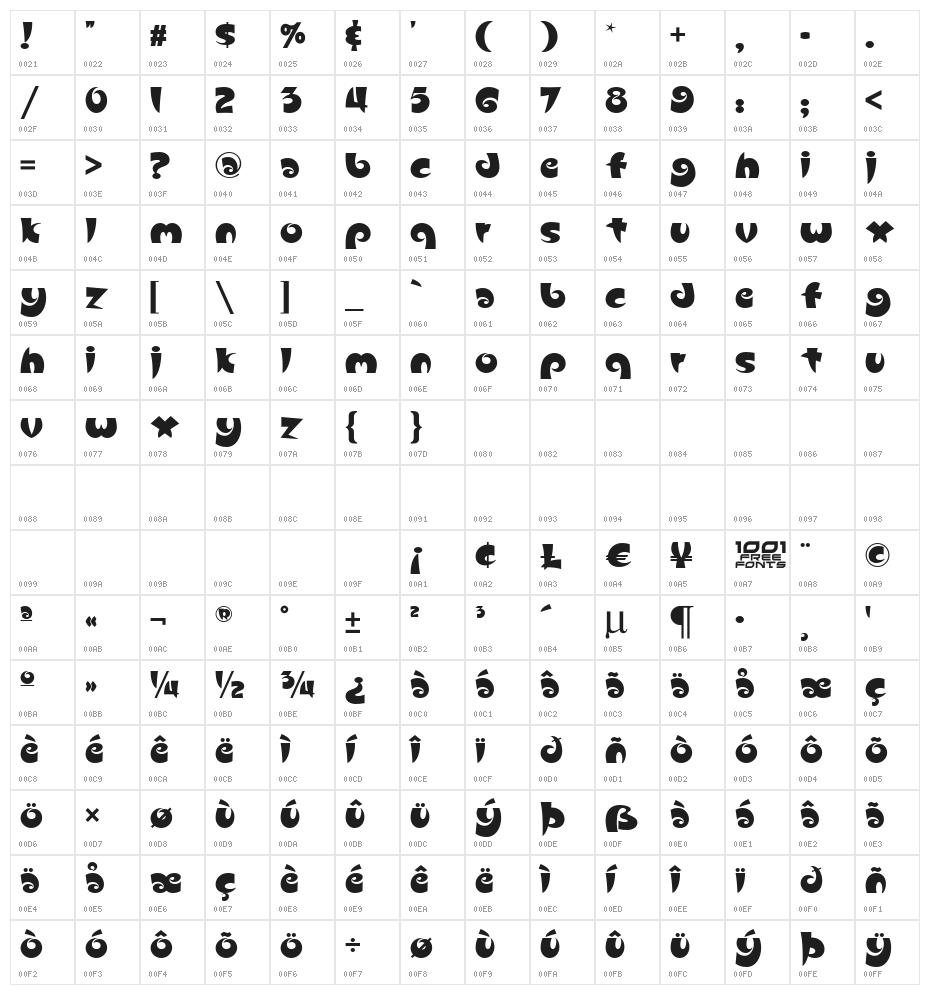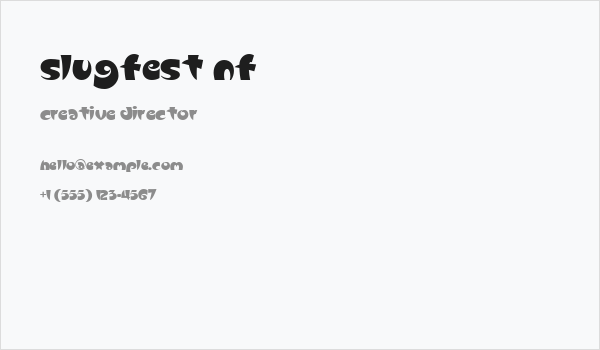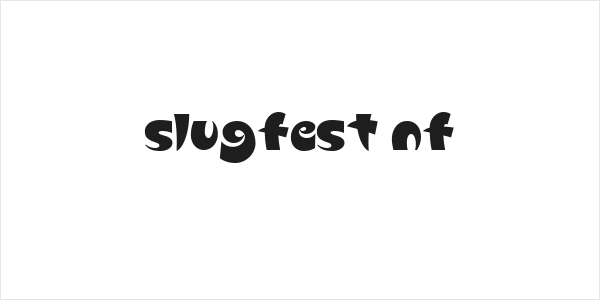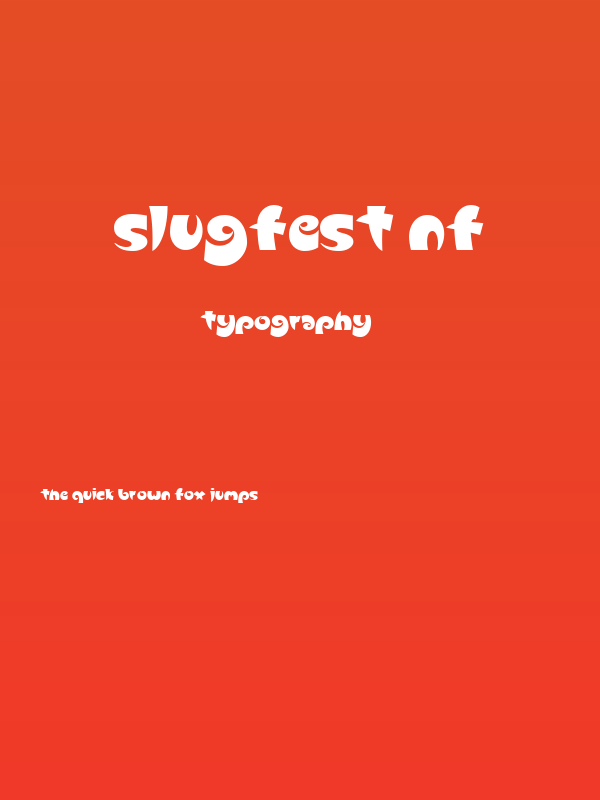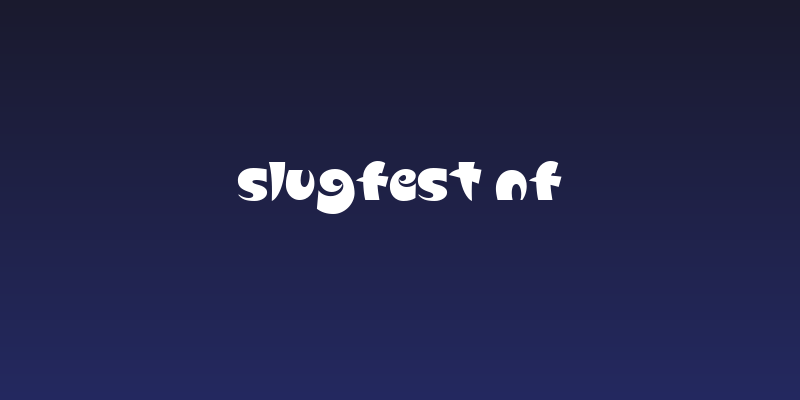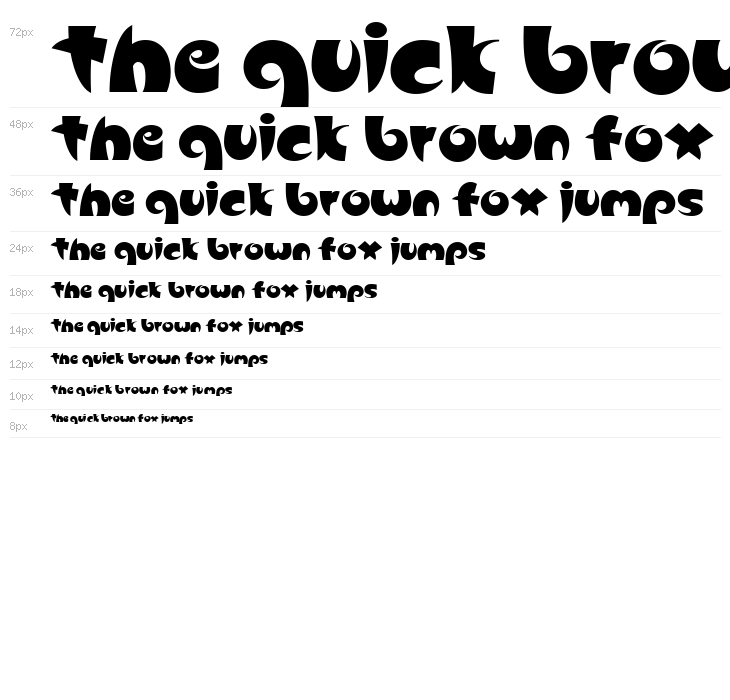
Slugfest NF Font
Slugfest NF Description
This font features a bold and playful design with a distinctly rounded and chunky appearance. The characters are heavily stylized, with exaggerated curves and a whimsical flair that gives them a lively and energetic feel. The uppercase and lowercase letters maintain a consistent weight, contributing to a cohesive look. The numbers and special characters follow the same playful style, making them suitable for creative and informal applications. The overall design is eye-catching and ideal for projects that require a fun and dynamic aesthetic.